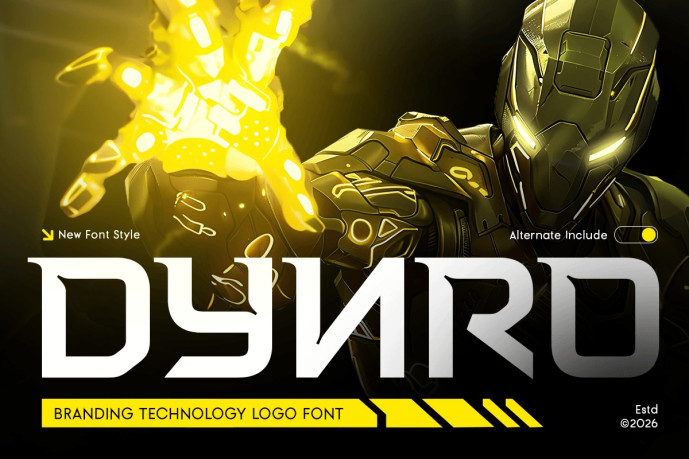
Dynro – The Techno Font
If you are looking for a futuristic, robotic, and modern techno font, meet Dynro. Dynro is a powerful display typeface inspired by advanced technology, digital systems, cyber interfaces, and futuristic environments.
Dynro is perfect for any creative works, such as technology branding, futuristic logos, game titles, movie posters, book covers, headlines, banners, flyers, product packaging, digital advertisements, esports designs, stationery, and many more. It can also be used for any-scale projects that need a strong modern and high-tech visual style.
With its unique geometric shapes and bold character, Dynro brings a futuristic atmosphere to every design. Create something innovative and awesome using Dynro. Thank you! 🙂